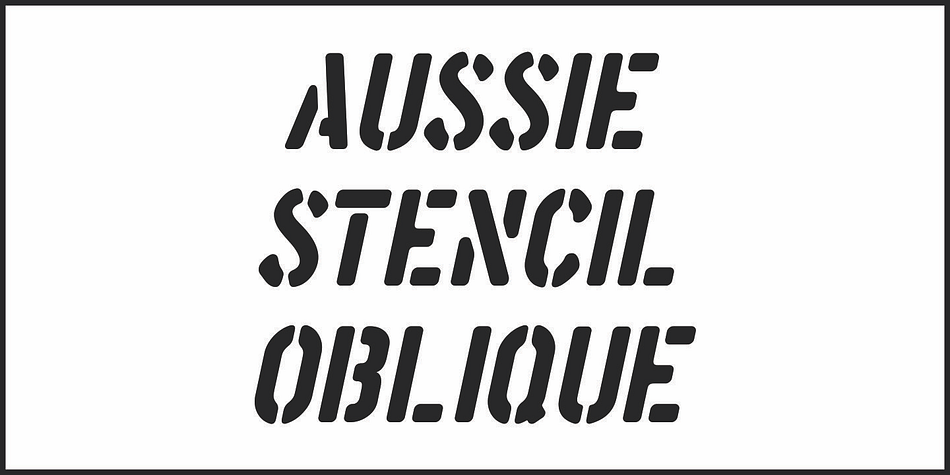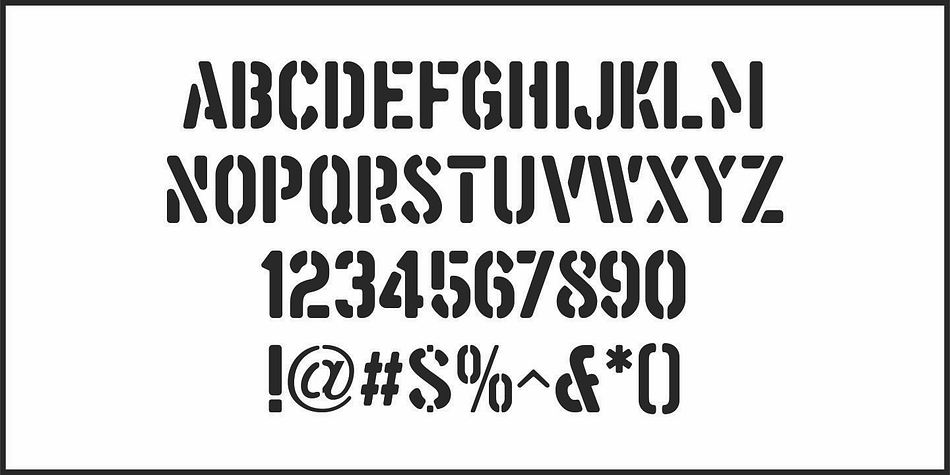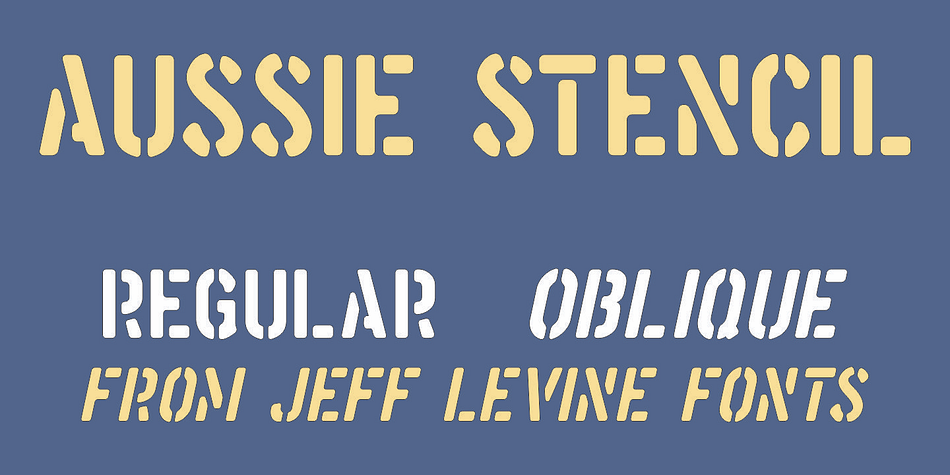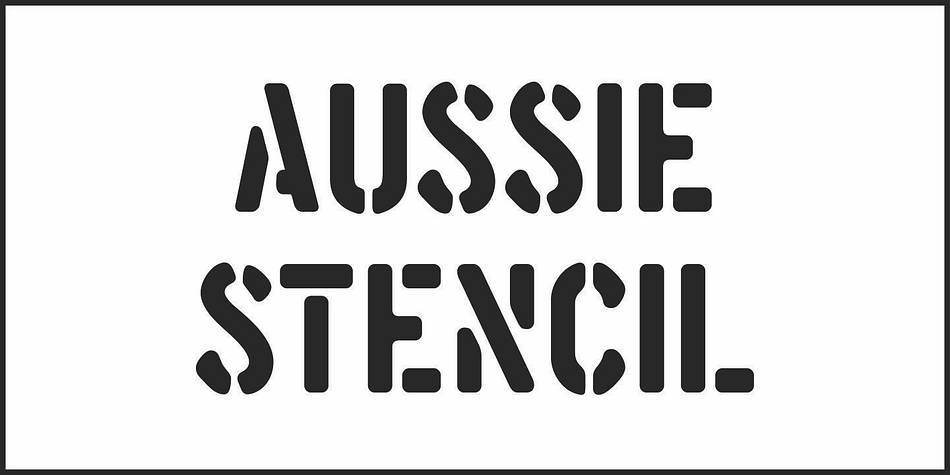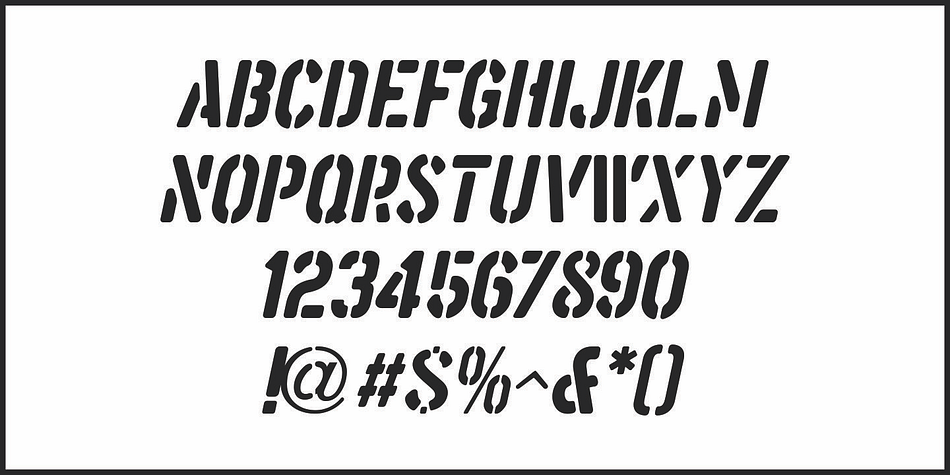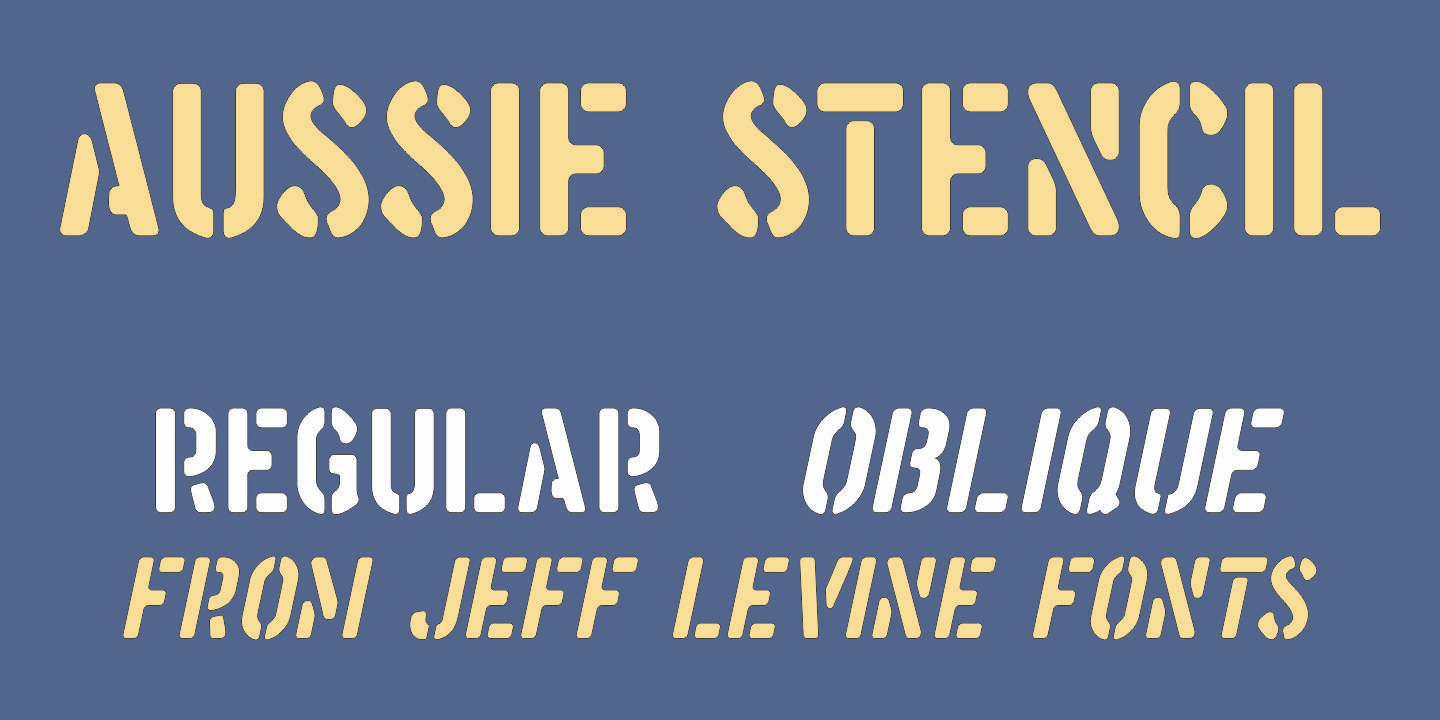
AUSSIE STENCIL JNL
Designed by Jeff Levine, Aussie Stencil JNL is a display sans and stencil font family. This typeface has two styles and was published by Jeff Levine Fonts.
An assortment of antique, hand-punched brass stencils from Australia [used for crate marking and shipping] served at the models for Aussie Stencil JNL, which is available in both regular and oblique versions.
The lettering of the original stencil punches had rounded edges to the characters; looking more machine rendered than hand punched into the brass sheets.